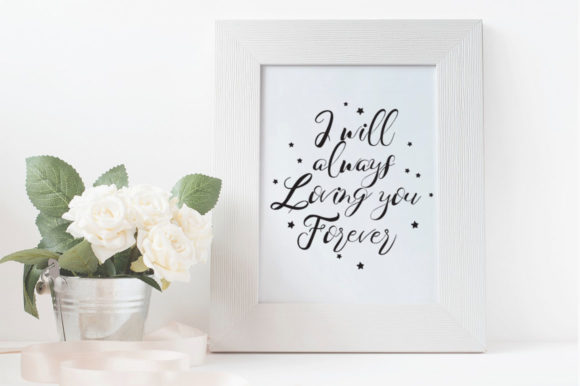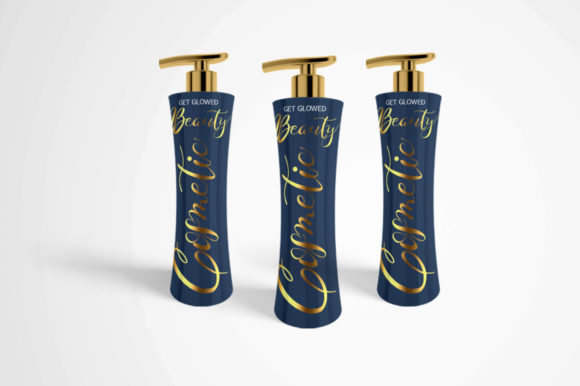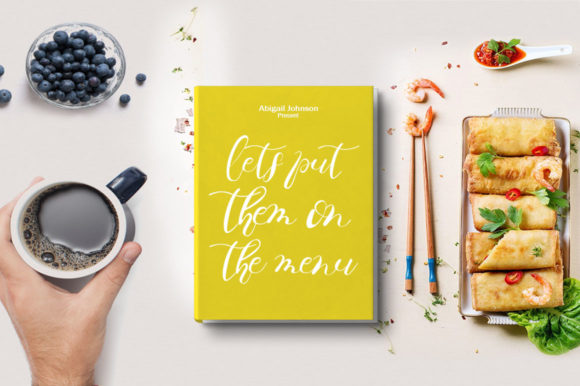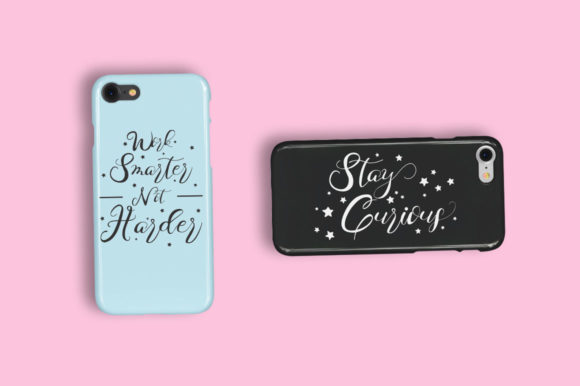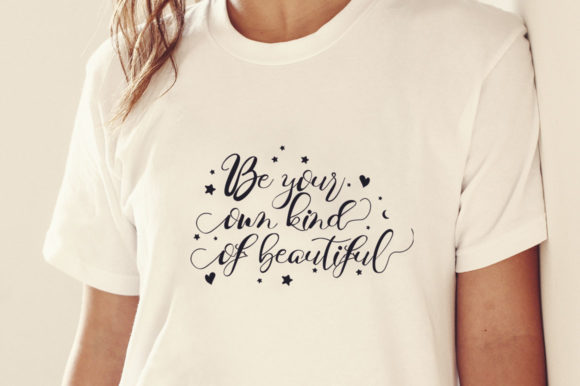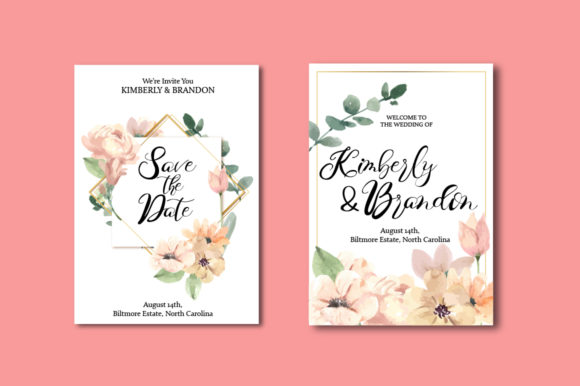
Introduction to Merylia Font
Have you ever found yourself in a creative rut, staring at a blank page with no inspiration in sight? For designers, this feeling can be especially daunting. But what if you had the perfect tool to spark your imagination and bring your ideas to life? Enter the beautiful Merylia Font, a stunning handwritten font that’s sure to captivate your senses and fuel your creativity.
With its organic feel and high-quality design, Merylia Font is the perfect addition to any creative project. Whether you’re working on a logo, brochure, or social media campaign, this font is sure to add a touch of elegance and sophistication. And the best part? It’s available for free download, making it an invaluable resource for designers on a budget.
- High-quality design for creative projects, perfect as a design resource for professionals and hobbyists alike.
- Unique, elegant design with a transparent background, ideal for use in logo design, branding, and other visual identity projects.
- Designed to be highly legible and readable, making it perfect for use in body text and headings.
- Supports a wide range of languages, including Latin, Cyrillic, and Greek, making it a versatile design resource for international projects.
Honest Review: Merylia Font
As a designer, I’m always on the lookout for high-quality fonts to elevate my creative projects. Recently, I stumbled upon the Merylia Font, and I must say, it’s been a game-changer for me.
One of the things that works well with the Merylia Font is its versatility. It’s a free download, which makes it a fantastic resource for designers who are on a budget. The font is also available in a transparent background, which makes it super easy to work with.
Here are some of the features that I love about the Merylia Font:
- Wide range of styles and weights to choose from
However, I do have a few limitations with the Merylia Font:
- Some of the styles can be a bit too bold, which may not be suitable for all designs
- The font may not be suitable for small text sizes
Overall, I’m thoroughly impressed with the Merylia Font. It’s a fantastic design resource that’s perfect for creative projects. While it has a few limitations, I think it’s well worth the free download.
For presentations in PowerPoint or documents in Word, simply select Merylia Font from the font list and start typing. This font’s clean and elegant design makes it perfect for business presentations, resumes, or any other formal document.
Merylia Font is ideal for various creative projects, including:
- Logos
- Typography-based art
- Business documents
To maximize the potential of Merylia Font, experiment with different font sizes, colors, and combinations to create unique and eye-catching designs. Additionally, pair Merylia Font with a transparent background to give your designs a modern and sophisticated look.